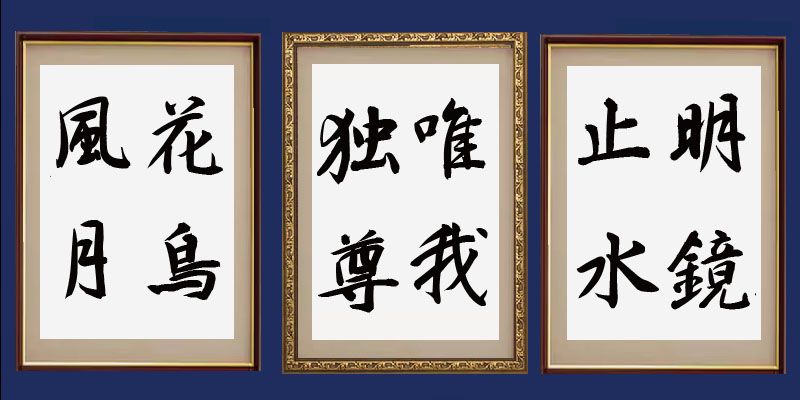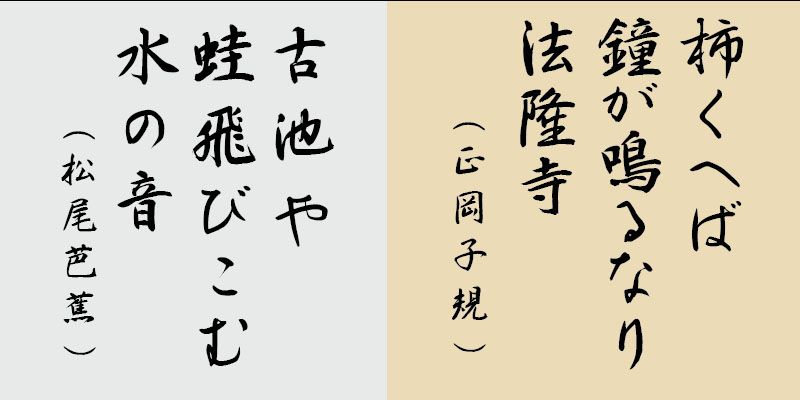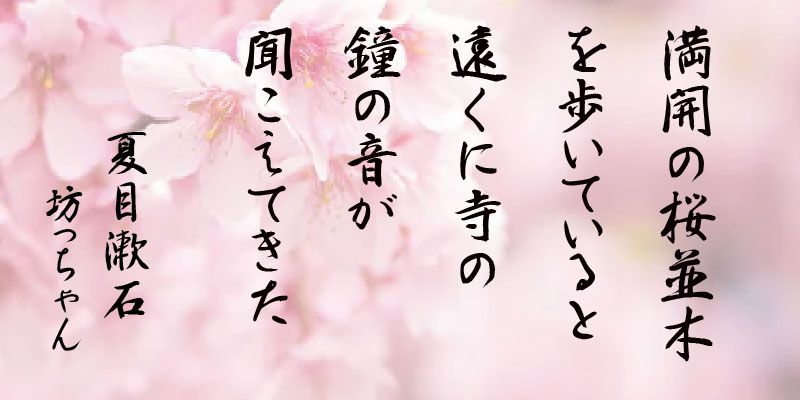
Ideographic characters that are easier to read are expressed in the cursive style, while difficult characters are in the semi-cursive style. This typeface design has warm, misshapen letter forms based on the classical models of Wáng Xīzhī. Such careful attention was paid to the stroke formation of each character, you may find it incredible that characters set in this typeface are not handwritten.
The alphanumeric characters, hiragana, and katakana characters included in each font in this typeface family are designed as proportional glyphs, each with its own unique character width.
With over 60 years of experience in calligraphy, Calligrapher Hakushu Nakamoto has created brush script fonts with beautiful and skillfully handwritten letter forms. He works as a professional calligrapher, offering custom services to meet a variety of client needs. By using Nakamoto’s designs, you will become more familiar with the art of traditional calligraphy.